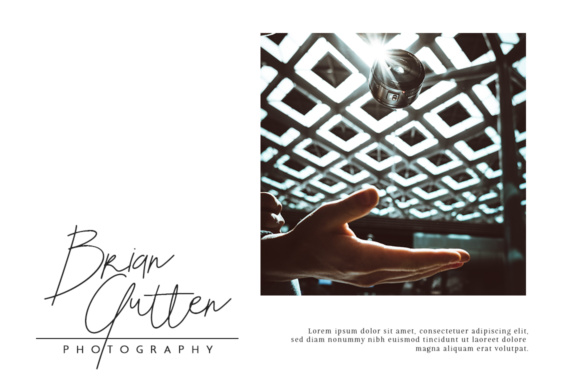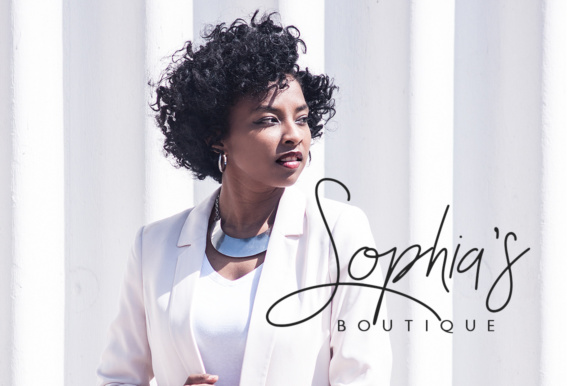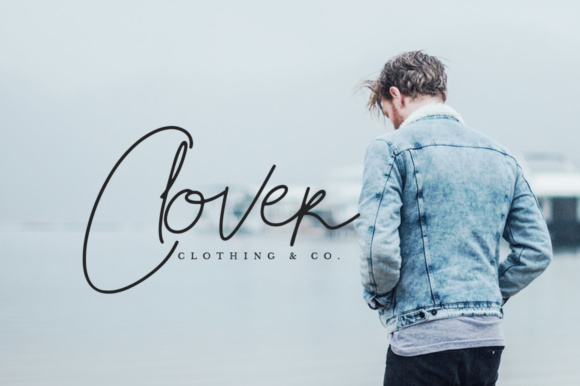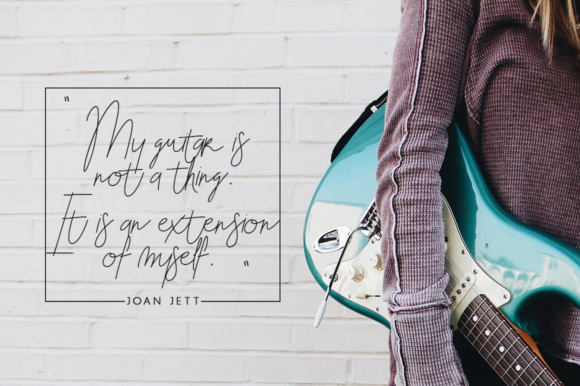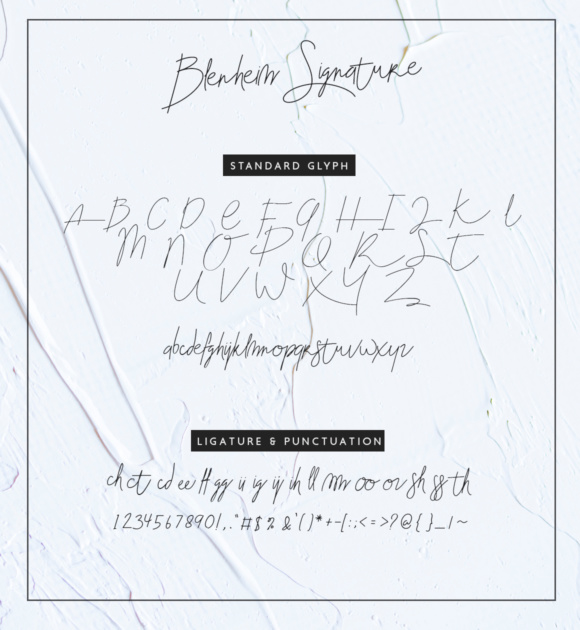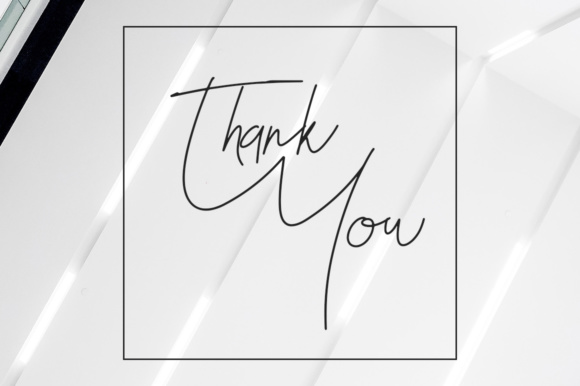
Signature Style with the Blenheim Signature Font
There’s something magical about the moment when a brand’s identity starts to take shape. You’ve brainstormed the perfect name, crafted a compelling tagline, and finally, you get to bring it all together with the perfect font. That’s where the Blenheim Signature Font comes in – a classy and minimal signature font that adds a touch of sophistication to any design.
This versatile font is perfect for designers who want to add a personal flair to their projects. Whether you’re working on a modern, minimal design or a classy, sophisticated one, the Blenheim Signature Font is sure to make a lasting impression. With its elegant lines and refined aesthetic, it’s the perfect choice for titles, logotypes, or anywhere else you need to make a statement.
Blenheim Signature Font Key Features
- Unique Characteristics: Blenheim Signature Font features a unique blend of modern and classic elements, with intricate details and ornate flourishes that make it perfect for formal and elegant designs.
- Font Style: This font is available in both regular and bold styles, offering users flexibility in choosing the right font weight for their designs.
Blenheim Signature Font Review
I recently had the chance to work with the Blenheim Signature Font, and I must say it’s a mixed bag. Let’s start with what works well: ✨ The font’s elegant, cursive script is perfect for creating a sophisticated and luxurious feel. It’s ideal for designing high-end branding materials, such as business cards, invitations, and logos. The font also features a range of OpenType features, including ligatures and swashes, which can add an extra layer of polish to your designs.
✨ The font’s versatility is another major plus. It works well in a variety of contexts, from modern and sleek to traditional and classic. I also appreciate the font’s high-quality rendering, which ensures that it looks great on both screens and print materials.
- ⚠️ Limited font size options: While the font looks great at larger sizes, it can become quite thin and difficult to read at smaller sizes.
- ⚠️ Limited language support: The font only includes support for Latin-based languages, which may limit its use in multilingual designs.
- ⚠️ Some compatibility issues: I experienced some issues with the font rendering in certain software and operating systems.
Overall, I’d say the Blenheim Signature Font is a solid choice for designers who need a high-end, elegant script font. However, it’s not without its limitations, and designers should be aware of these potential issues before using it in their projects.
Use the Blenheim Signature font for titles, headings, and other display text to add a touch of elegance and sophistication.
Pair the font with a clean and simple sans-serif font for body text to create a balanced and readable design.
Experiment with different font sizes and styles to create visual interest and hierarchy in your design.